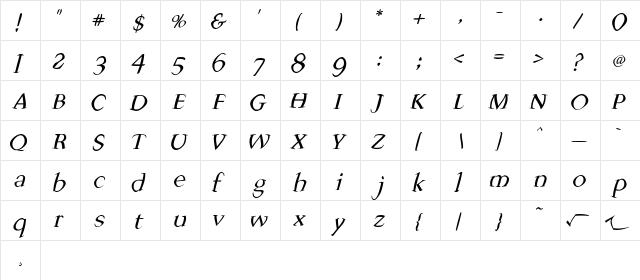
ScoriaFSlanted Regular
Design Context for ScoriaFSlanted Typeface
ScoriaFSlanted offers clean, dependable letterforms without strong stylistic allegiance, making it a practical choice for designers who need flexibility. Its italic angle brings a sense of urgency and motion to the letterforms.